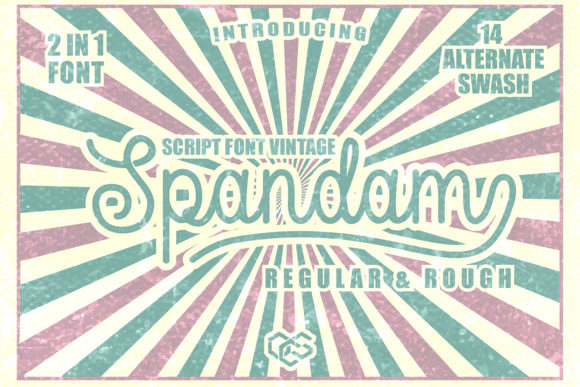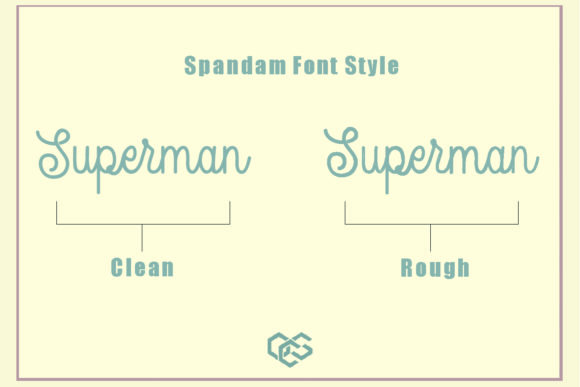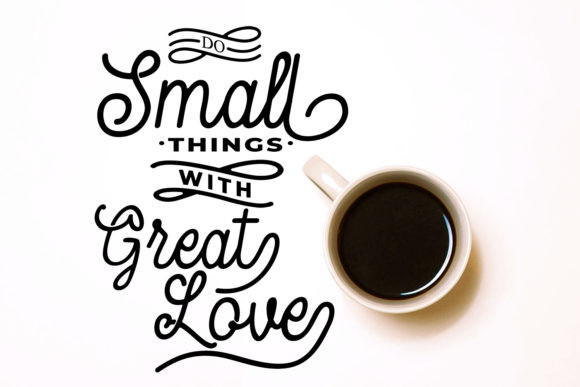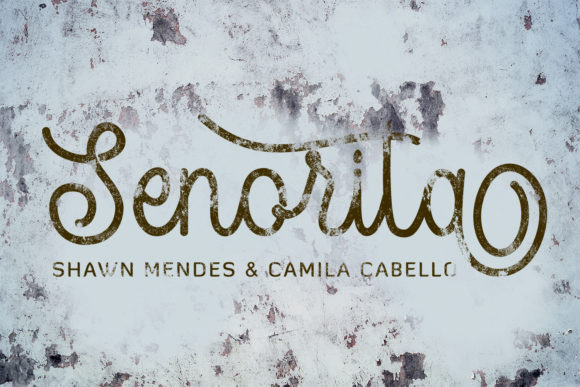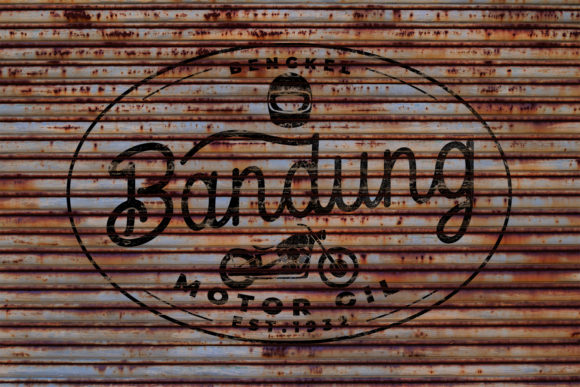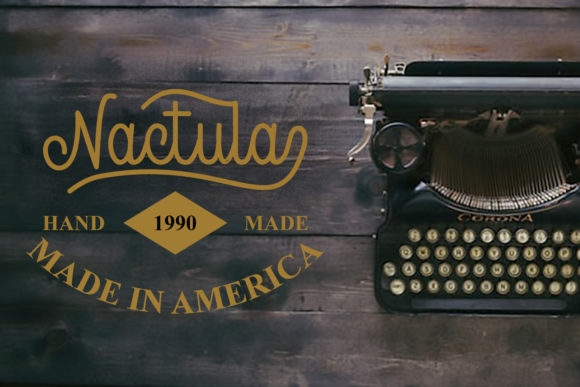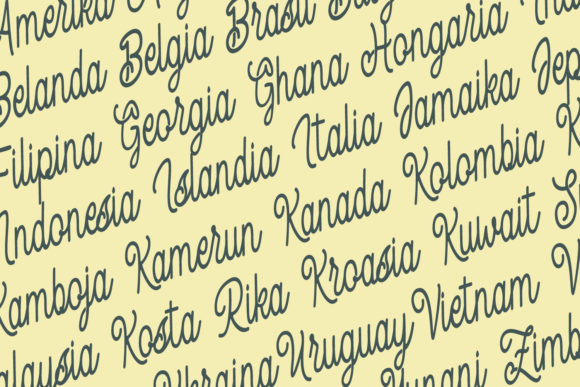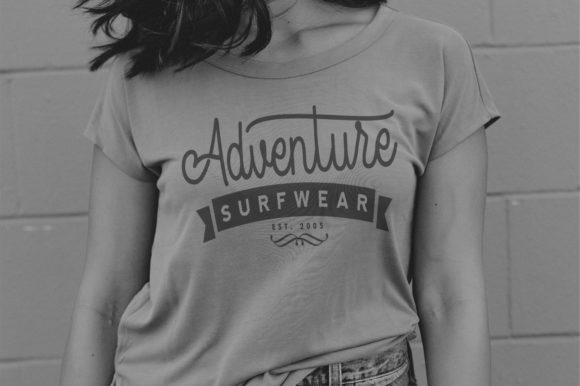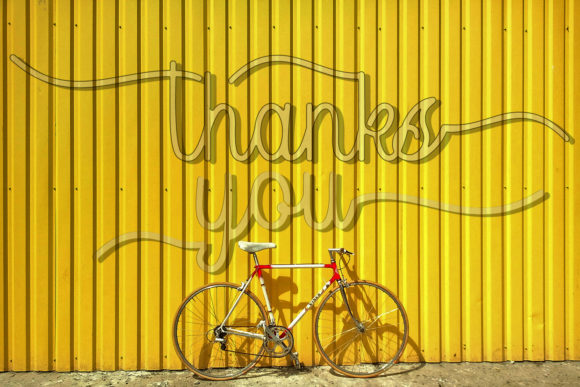
Spandam Font
About Spandam Font
Spandam is a friendly vintage script font with casual style. Use it for any design project that requires a personalized appearance!